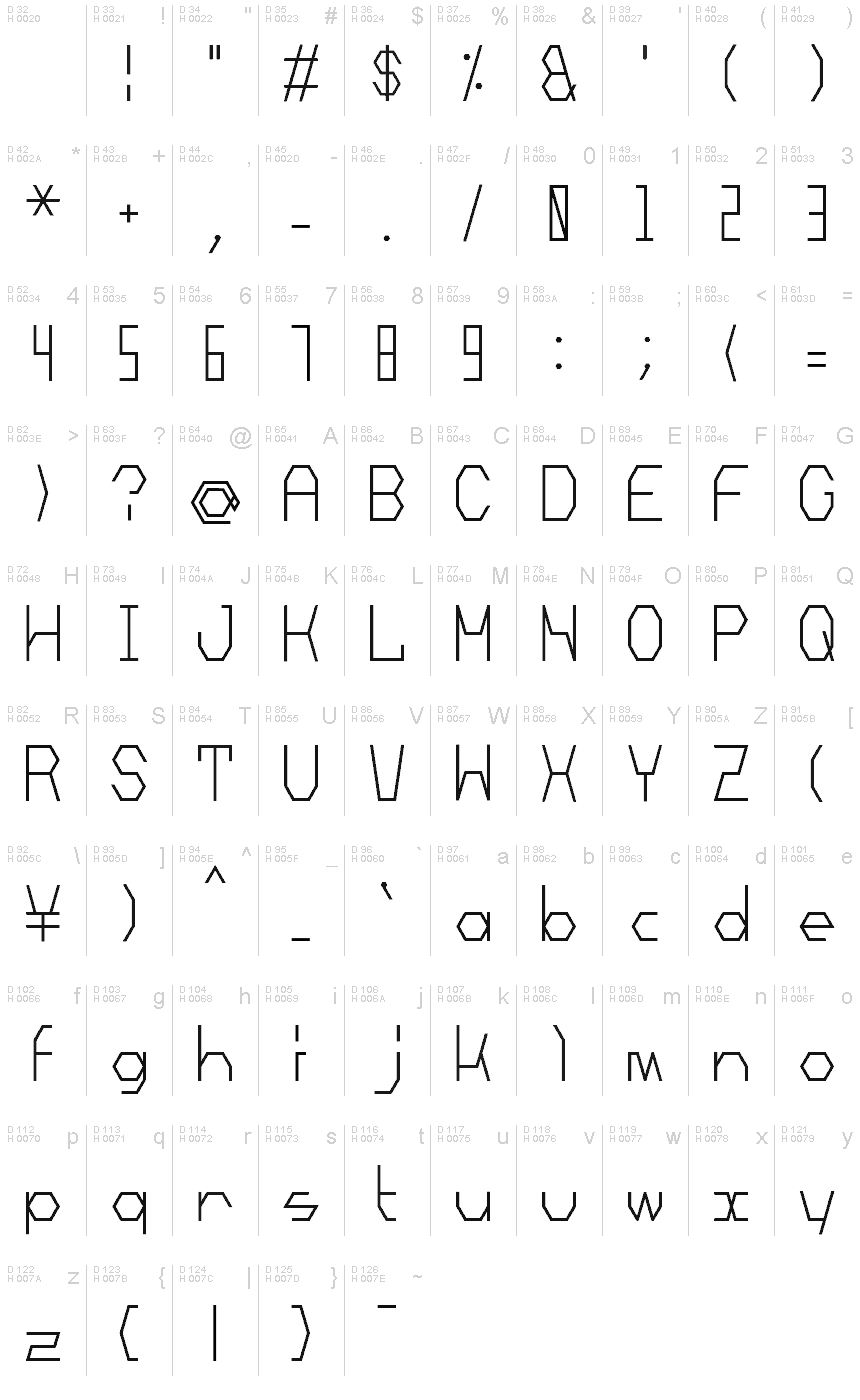
Mechanoarc
Mechanoarc is a captivating display font that exudes a distinct futuristic flair. Designed by Mizcore, its light weight and angular, mechanical aesthetic make it a standout choice for a range of design applications.
The sharp, angular letterforms and sleek lines evoke a sense of technological advancement and cutting-edge modernity, making Mechanoarc an ideal selection for branding, packaging, and digital interfaces that seek to convey a forward-thinking, innovative spirit.
Its versatility allows it to seamlessly integrate into a variety of design contexts, from sci-fi-inspired graphics to sleek, minimalist compositions.